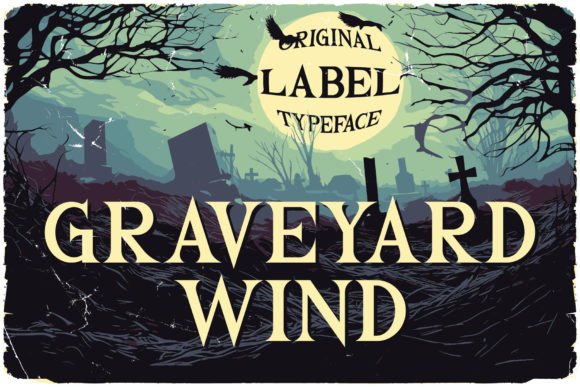
Descend into the realm of vintage horror cinema with 'Graveyard Wind', a font that immortalizes the captivating aura of 80s movie posters. This meticulously crafted display font is a gateway to a bygone era, where eerie charm and crafty aesthetics reigned supreme. Unleash the chilling essence of vintage movie posters in your designs with 'Graveyard Wind'.
Step into the nostalgic world of 80s horror and recreate the authentic atmosphere of classic films. Let 'Graveyard Wind' elevate your poster designs, t-shirt graphics, and logos with its unmistakable crafty touch. Experience the thrill of designing with a font that captures the essence of vintage horror, evoking a sense of mystery and intrigue in your creations.
'Graveyard Wind's' versatility extends beyond its nostalgic charm, seamlessly adapting to various projects with multilingual support and versatile font formats. This font is your gateway to captivating visuals, effortlessly adapting to your creative vision. Seize the opportunity to infuse your designs with the spirit of the 80s, letting 'Graveyard Wind' breathe life into your creative endeavors.